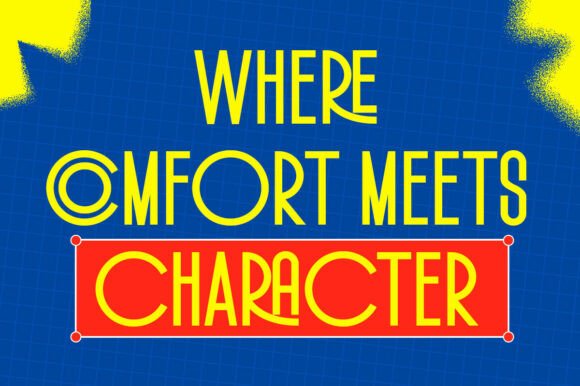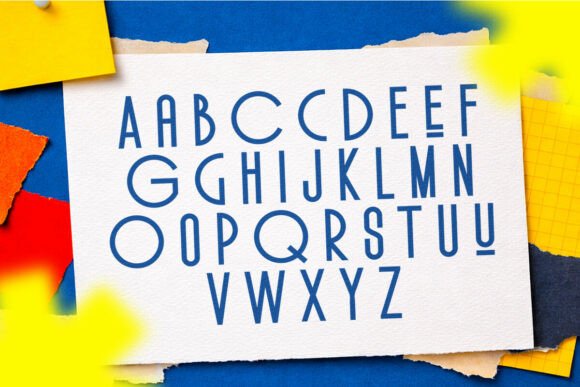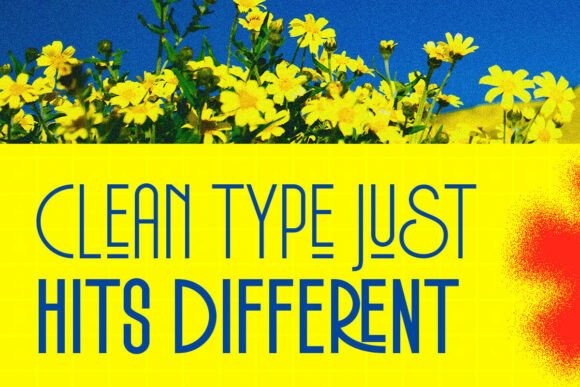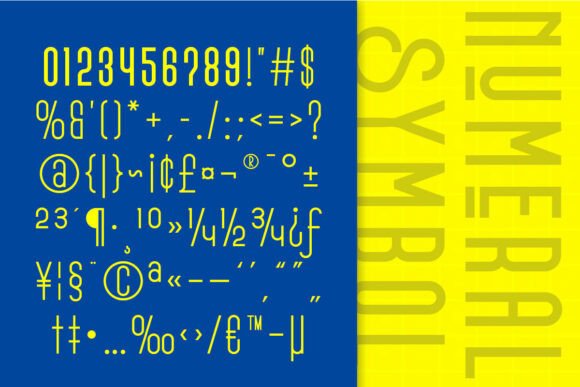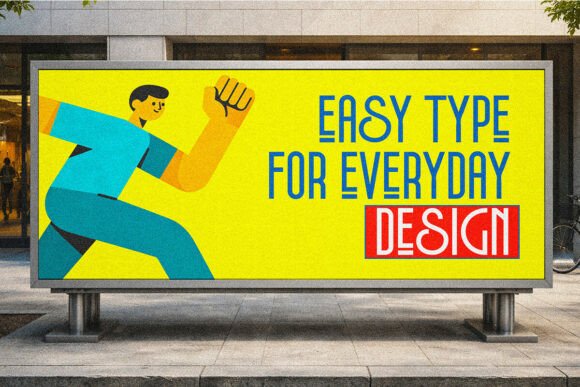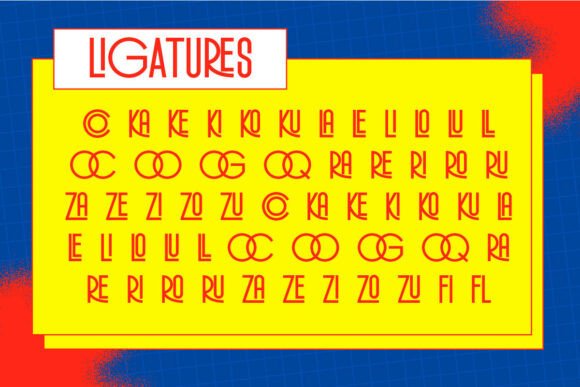
Introducing Gonela Font: The Ultimate Modern Condensed Sans Display Font
In the world of typography, a good font can make all the difference in the effectiveness of a design. For designers and crafters looking for a modern, sleek, and professional font to elevate their projects, Gonela Font is an exceptional choice. Designed with bold clarity, sleek structure, and contemporary visual impact in mind, Gonela is a versatile typeface perfect for a wide range of applications.
Design and Features of Gonela Font
Gonela is a modern condensed sans display font that boasts tall proportions and narrow spacing. This unique design maximizes space efficiency, allowing designers to fit more text into tight layouts without compromising on style or legibility. The clean lines and balanced geometry of Gonela make it a powerful choice for headlines, branding, and high-impact typography.
Some of the key features of Gonela Font include:
- Comprehensive character set: The font includes uppercase, lowercase, numbers, and punctuation, providing everything needed for most design projects.
- Special alternates and ligatures: Gonela offers special alternates and ligatures, giving designers more creative options and flexibility.
Gonela Font is crafted for designers who need a sharp and professional condensed font for various projects. Its versatility makes it perfect for:
- Logo design: Create a bold and memorable logo with Gonela’s sleek and modern design.
- Posters: Use Gonela to grab attention with eye-catching headlines and titles.
- Magazine titles: Add a touch of sophistication and professionalism to your magazine’s title page.
- Sports graphics: Gonela’s bold and dynamic design makes it perfect for sports-related graphics and branding.
- Streetwear branding: Create a stylish and modern brand identity with Gonela’s condensed sans design.
- Packaging: Use Gonela to create eye-catching packaging that stands out on store shelves.
- Advertising campaigns: Gonela’s bold and clear design makes it perfect for advertising campaigns that need to grab attention quickly.
- Social media content: Elevate your social media content with Gonela’s modern and sleek design.
Why Choose Gonela Font?
With so many fonts available, why choose Gonela? Here are a few reasons why Gonela stands out:
- Unique design: Gonela’s modern condensed sans design sets it apart from other fonts, making it perfect for designers looking for something fresh and unique.
- High readability: Despite its condensed design, Gonela maintains strong readability, making it perfect for a wide range of applications.
- Flexibility: With its comprehensive character set and special alternates and ligatures, Gonela offers designers a high degree of flexibility and creative freedom.
In conclusion, Gonela Font is an exceptional choice for designers and crafters looking for a modern, sleek, and professional condensed sans display font. Its unique design, high readability, flexibility, and professional support make it perfect for a wide range of applications. Whether you’re working on a logo design, poster, magazine title, or social media content, Gonela is sure to deliver bold clarity, sleek structure, and contemporary visual impact.